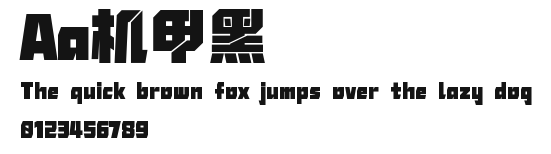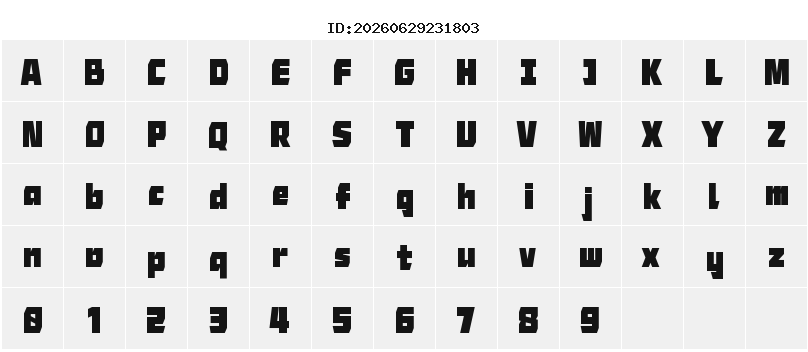
Aa机甲黑 Preview
• Font Name: Aa机甲黑
• Designer: Aa
• Manufacturer: 翰美互通(厦门)科技有限公司
• Description: AaJiJiaHei is a fantastic font with excellent features designed for user interfaces and electronic communications.
Aa机甲黑.ttf is a modern, elegant sans-serif font designed for ultimate readability and visual harmony. Perfect for branding, headlines, web design, and print materials.